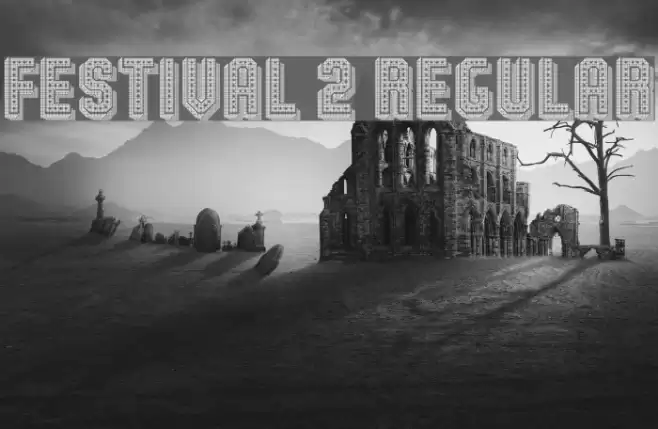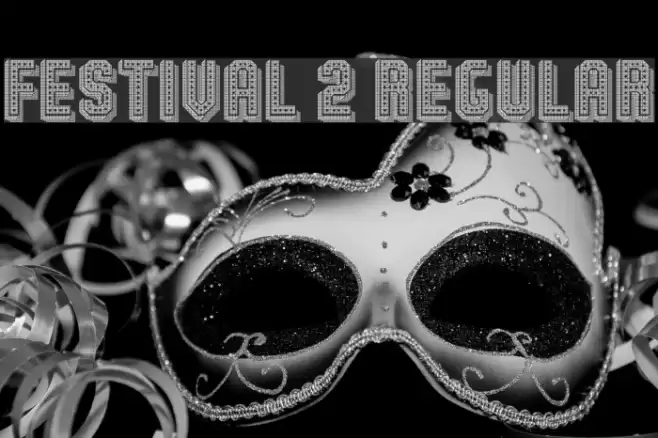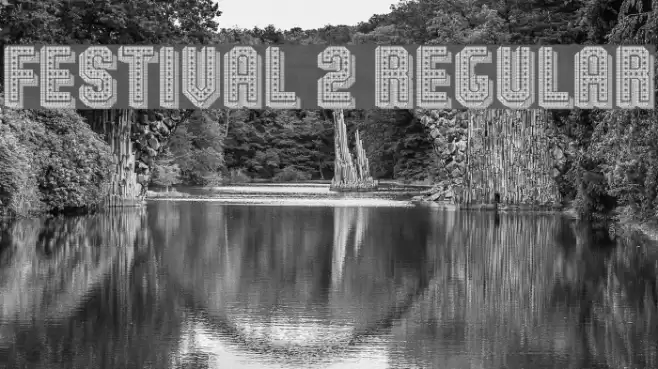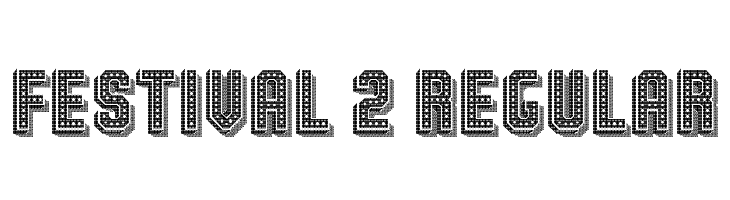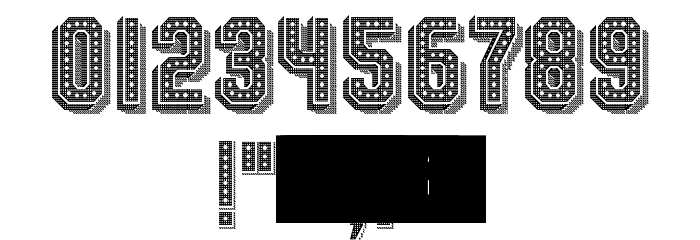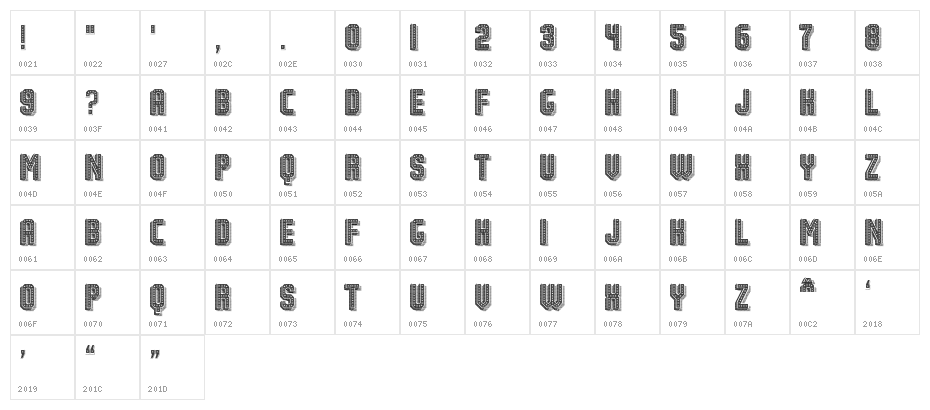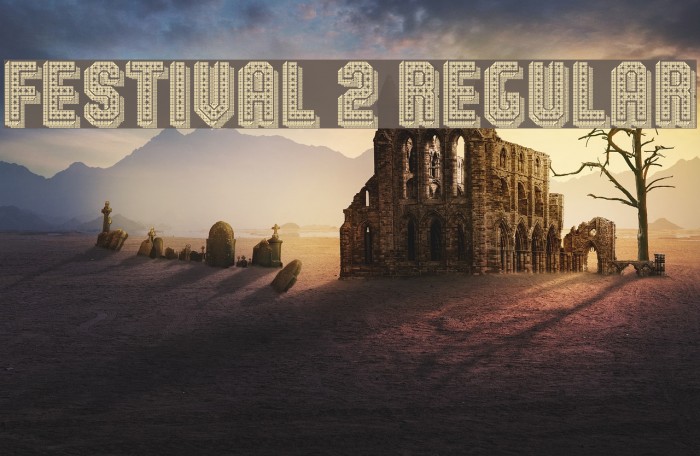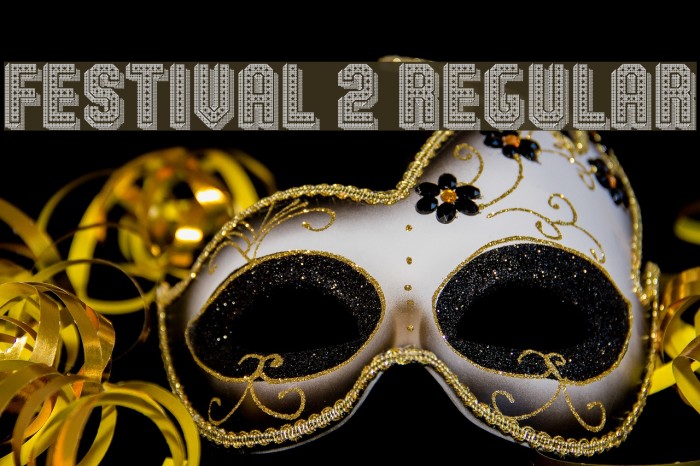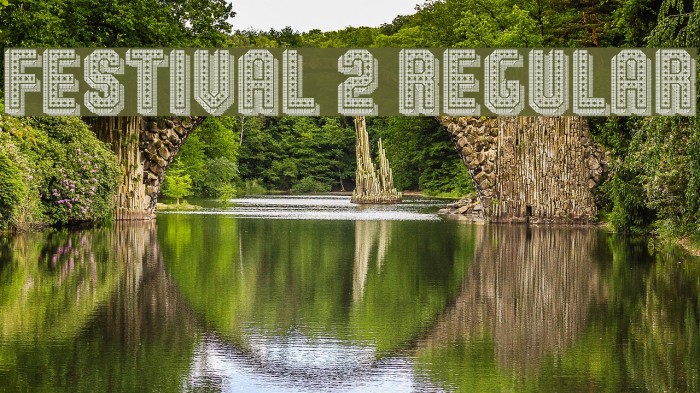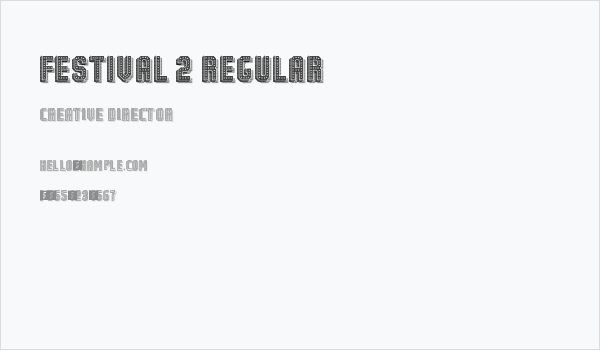
Festival 2 Regular Font
Festival 2 Regular Description
This font features a bold, decorative style with a three-dimensional effect reminiscent of marquee or carnival lights. Each character is outlined with a thick border and filled with a pattern of dots and lines, creating a textured appearance. The uppercase letters are uniform in height, with a geometric structure that gives them a strong, impactful presence. The numerals and special characters maintain the same decorative style, ensuring consistency across all glyphs. This font is ideal for eye-catching designs that require a playful yet bold aesthetic.
A bold, decorative font with a marquee light effect and textured fill from Uncategorized fonts.
- Proposed Projects: Ideal for festival posters, event invitations, signage, and any project needing a lively, bold aesthetic.